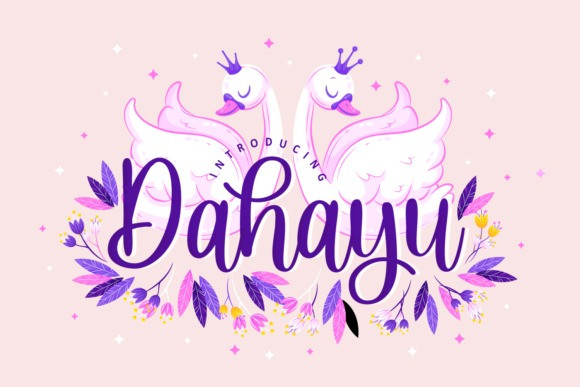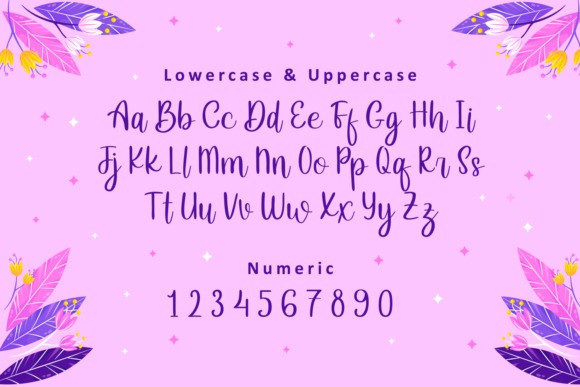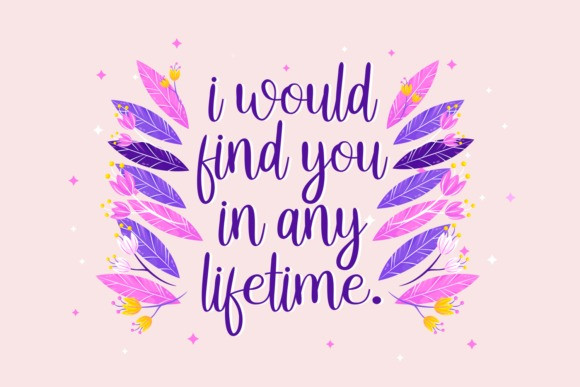
Dahayu Font
Dahayu is a chic, refined script font that emanates sophistication and elegance, modern, fancy, also timeless. Its stylish alternates and ligatures make this font the perfect match for any project.